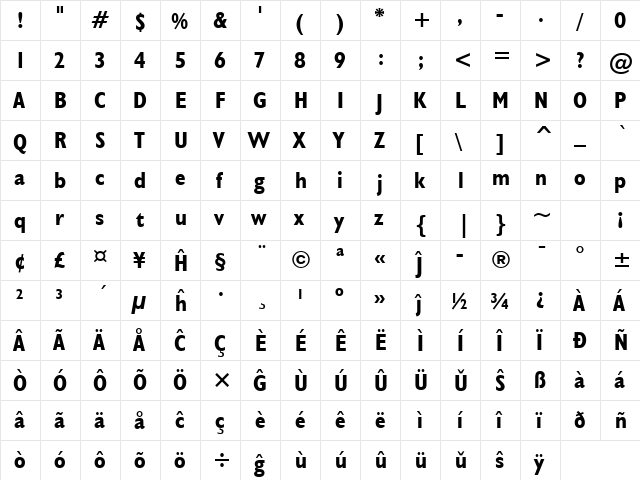
Humanst521 Cn BT Eo Bold Font Preview
Humanst521 Cn BT Eo Bold
Design Context for Humanst521 Cn BT Eo Typeface
Humanst521 Cn BT Eo is a composed and adaptable typeface that performs quietly and consistently across a wide range of design contexts. Its bold stroke weight gives it real presence on the page.